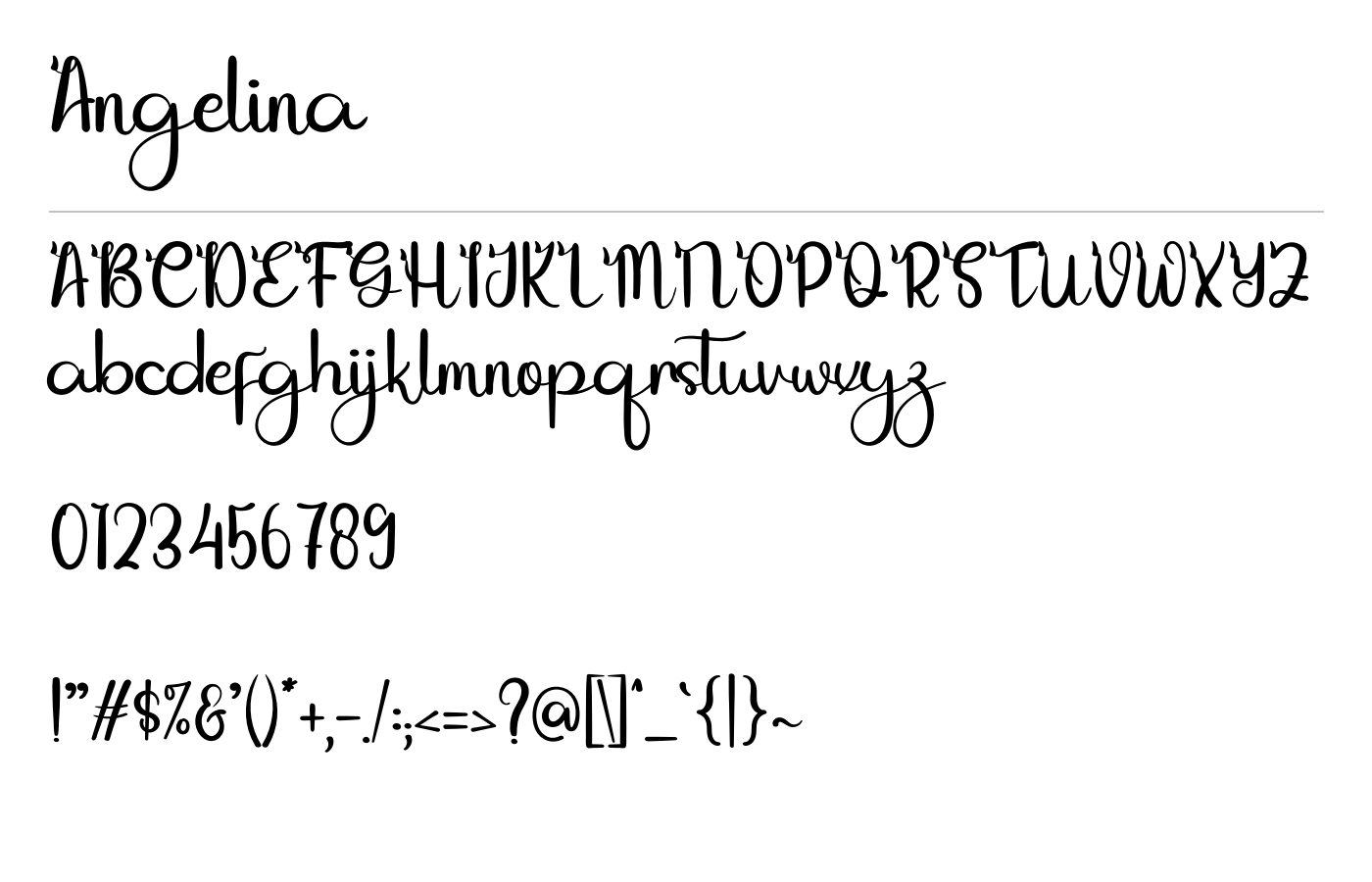
Angelina is a playful and elegant handwritten script font with thin strokes and whimsical loops that give it a charming, casual feel. Its tall x-height and upright style make it both readable and visually appealing, ideal for creative projects that want to convey friendliness and individuality. This font works beautifully in invitations, branding, and headlines where a touch of personality and warmth is desired.
Angelina Font
About Angelina Font